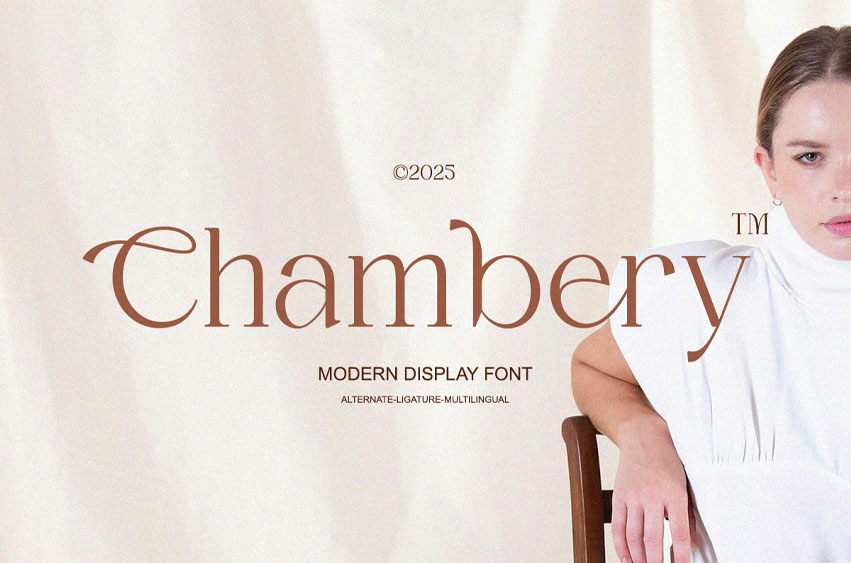
Chambery Font is a modern display serif font that brings refined class and subtle luxury into your visual identity.
With soft curves, delicate contrast, and stylish alternates, Chambery creates a timeless typographic voice for your brand. Perfectly suited for high-end editorial layouts, fashion branding, wedding invites, and everything in between.
Its natural elegance and versatility make Chambery the font of choice for creatives who seek grace without compromising on modern edge.
• Elegant alternates & ligatures
• Elegant branding & logo design
• Editorial magazine & blogs
• Feminine product packaging
• Fashion lookbooks & social media
• Wedding & invitation typography
The beauty of minimal elegance, now available in every character.